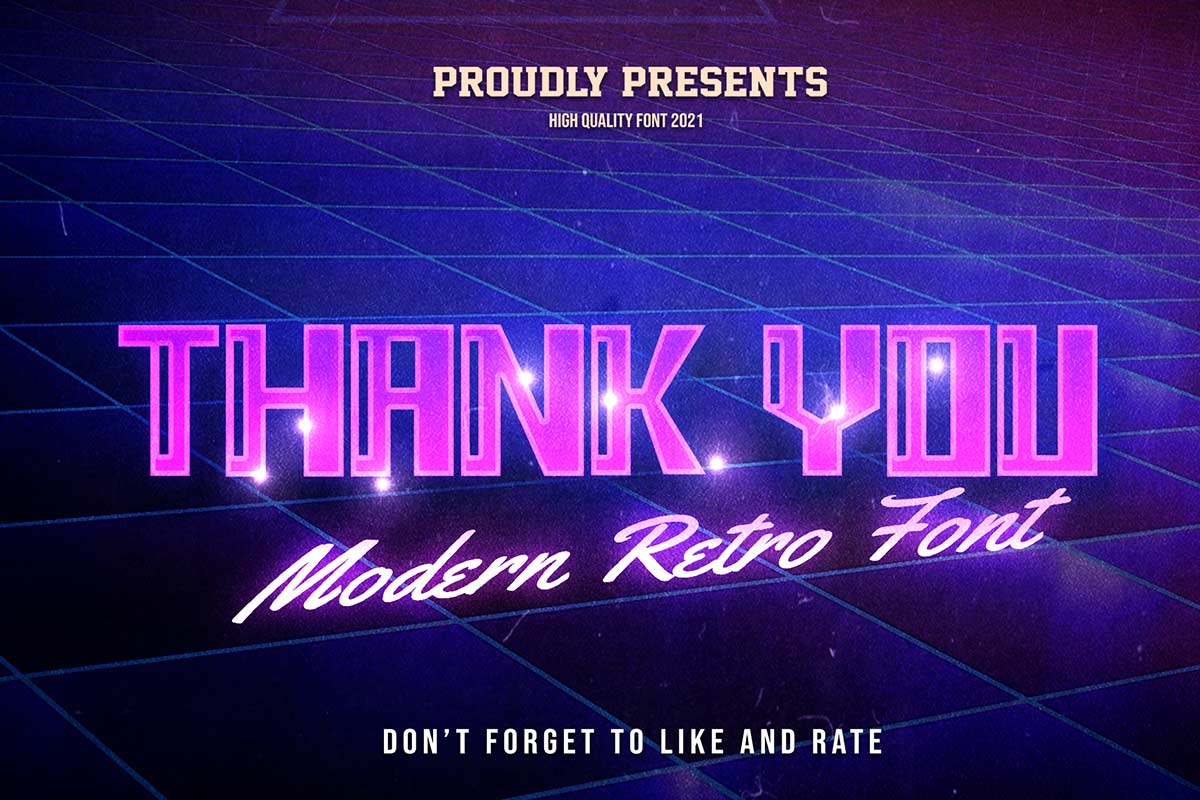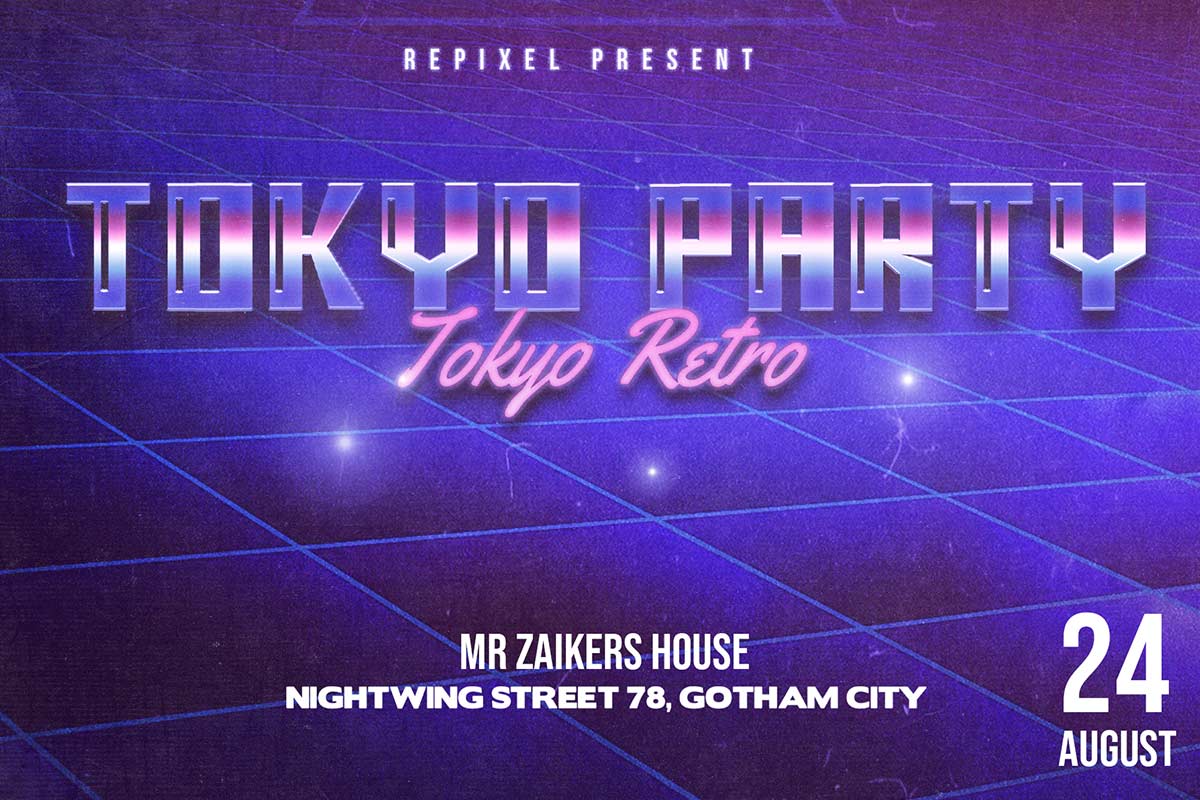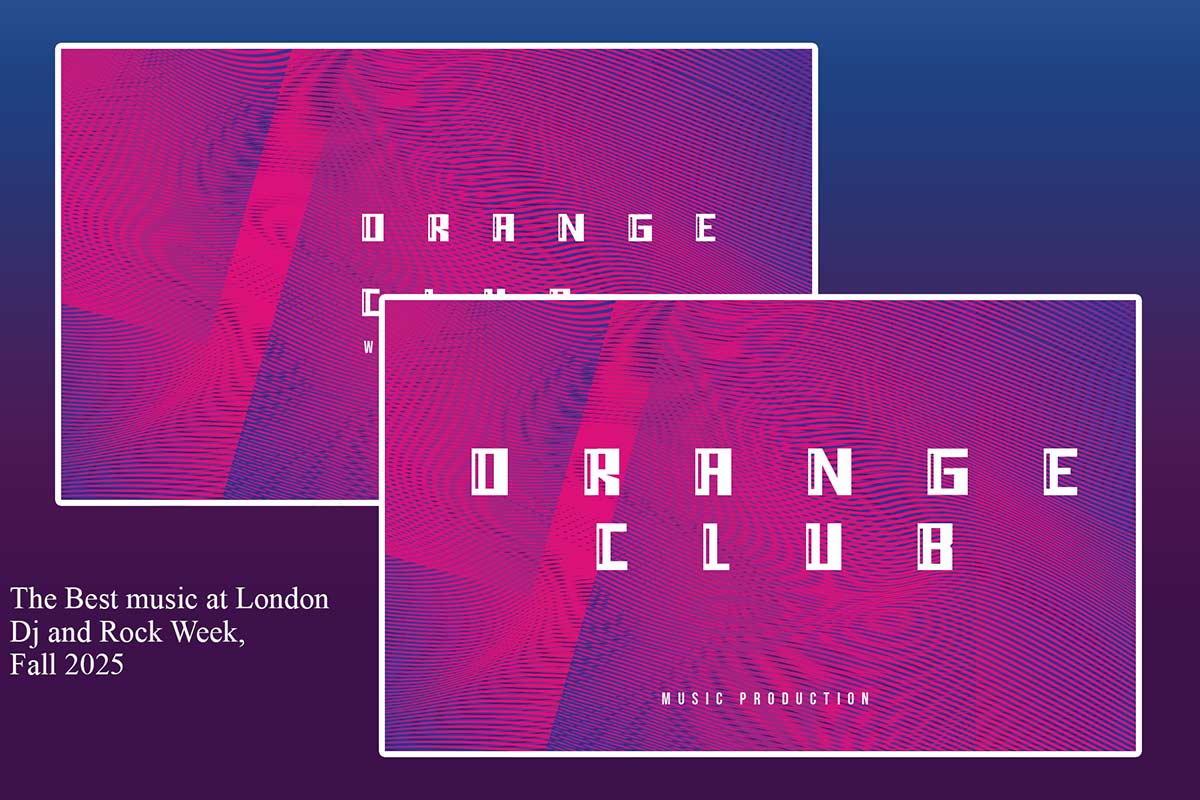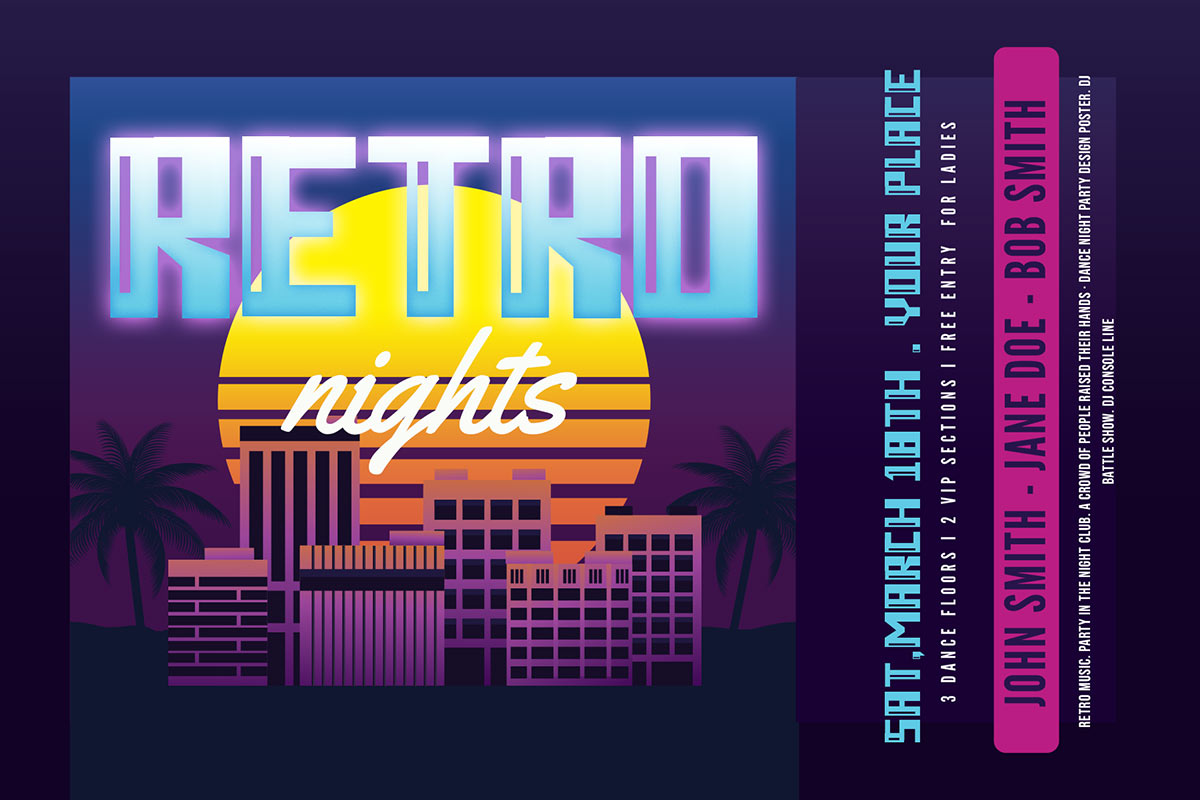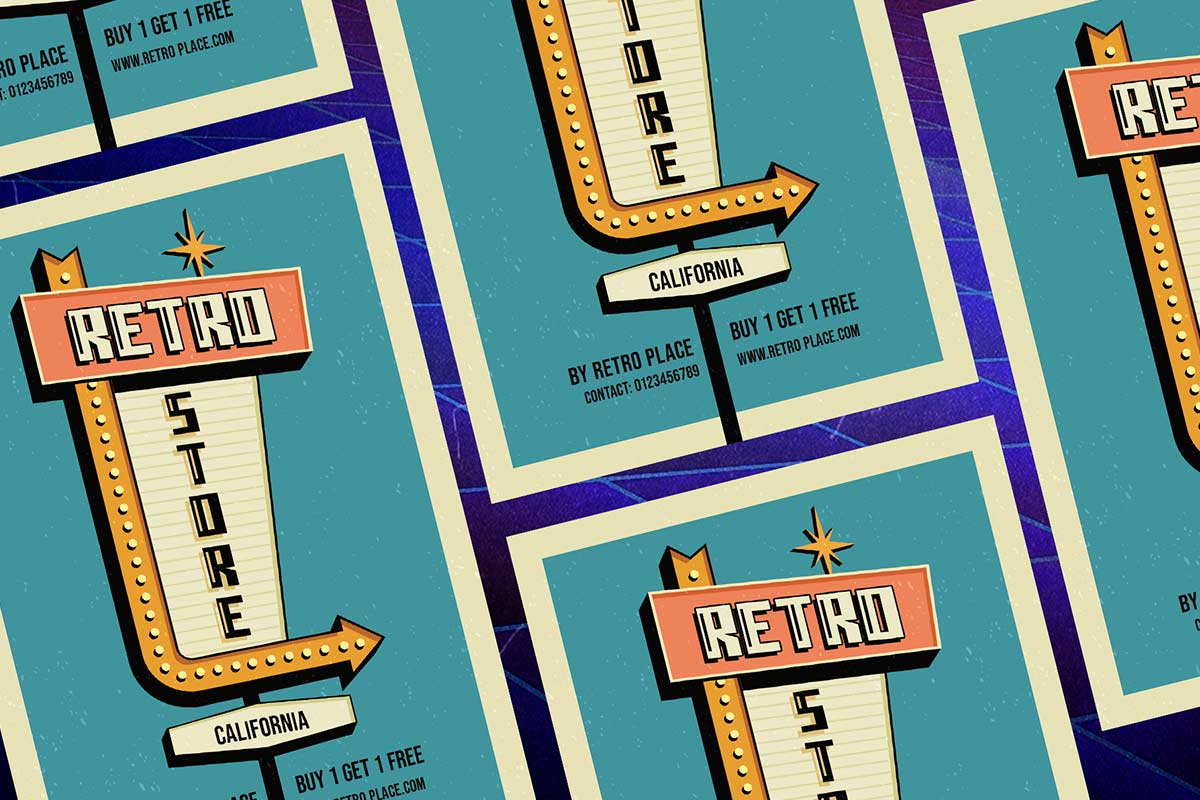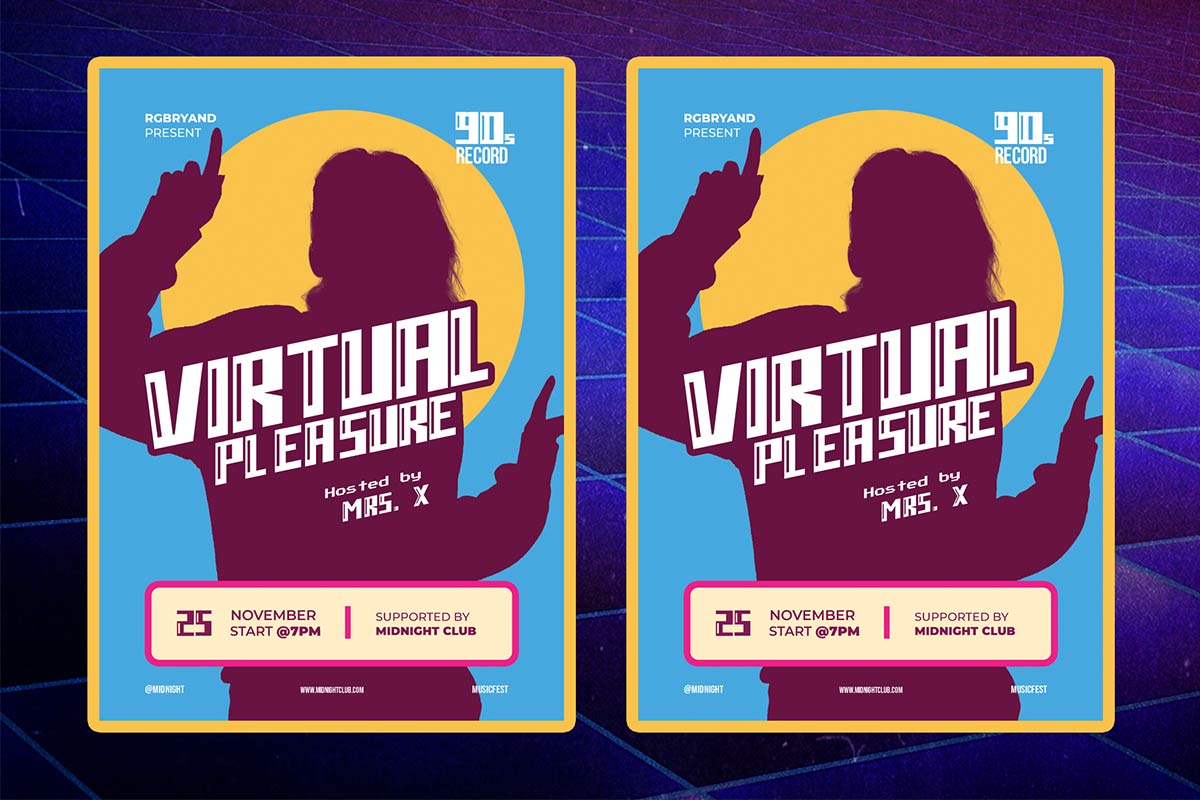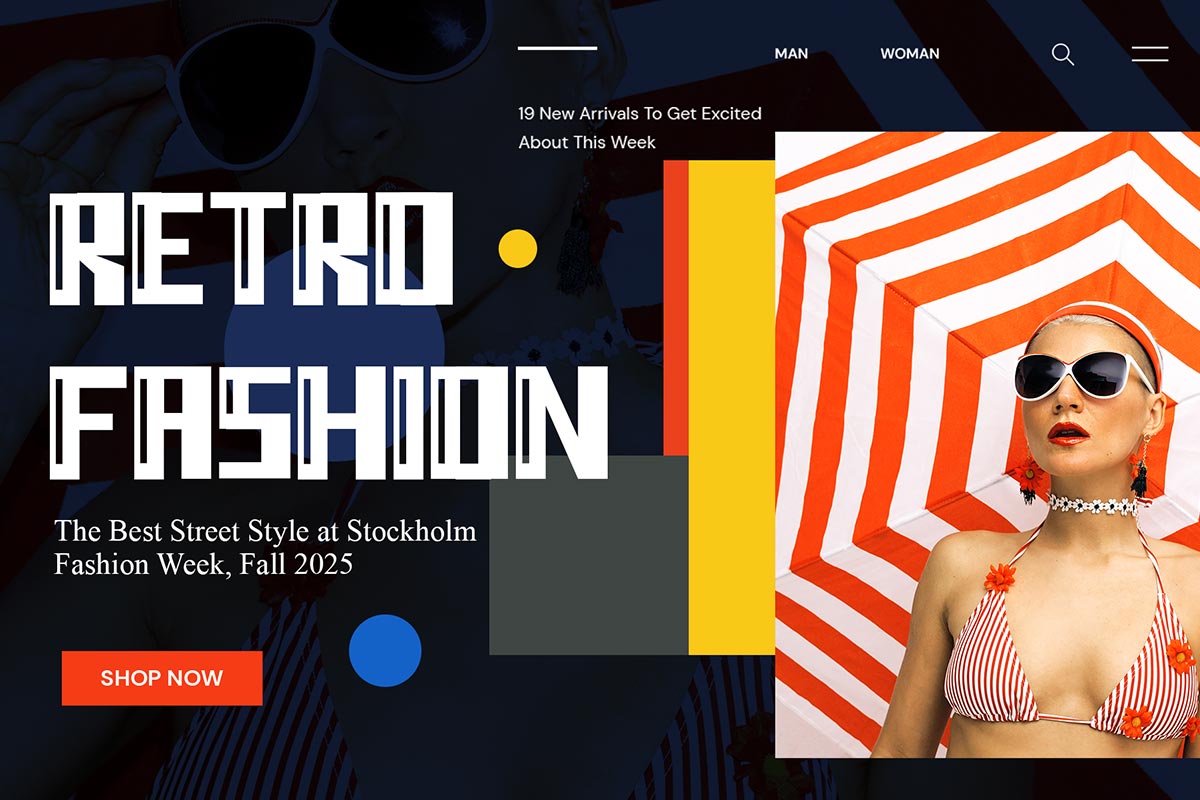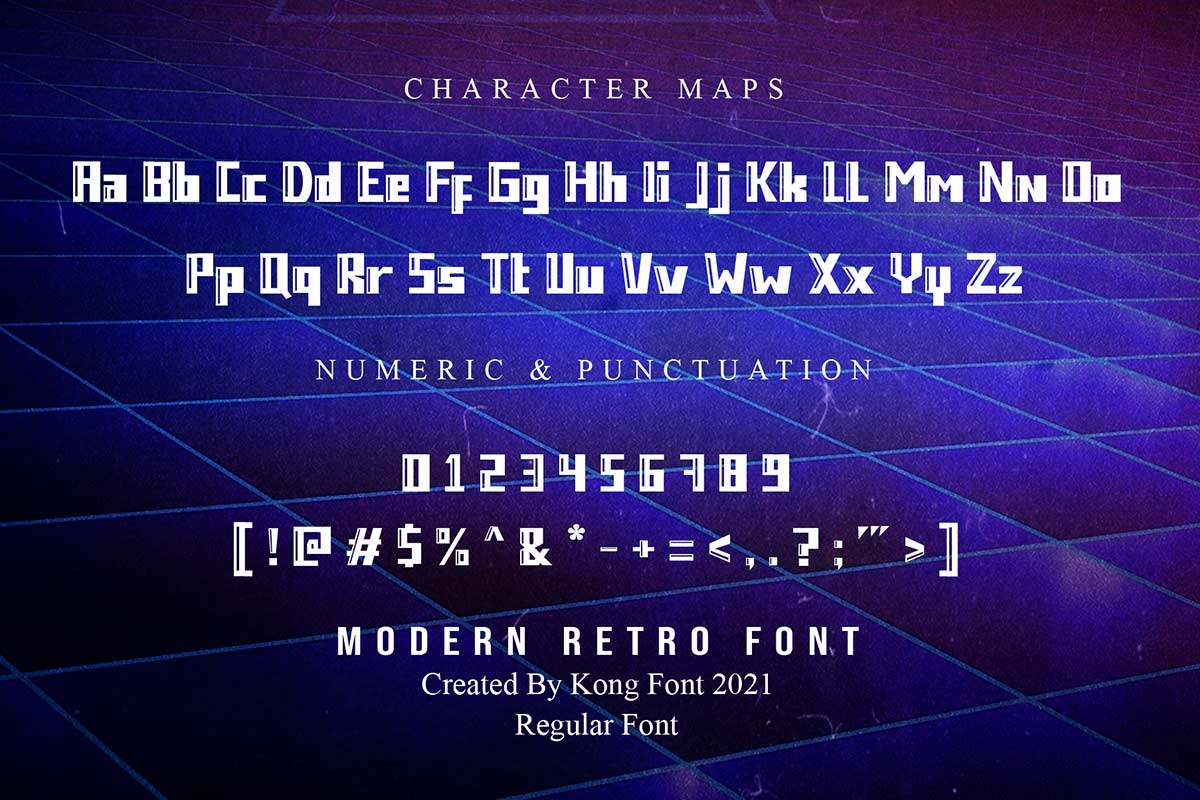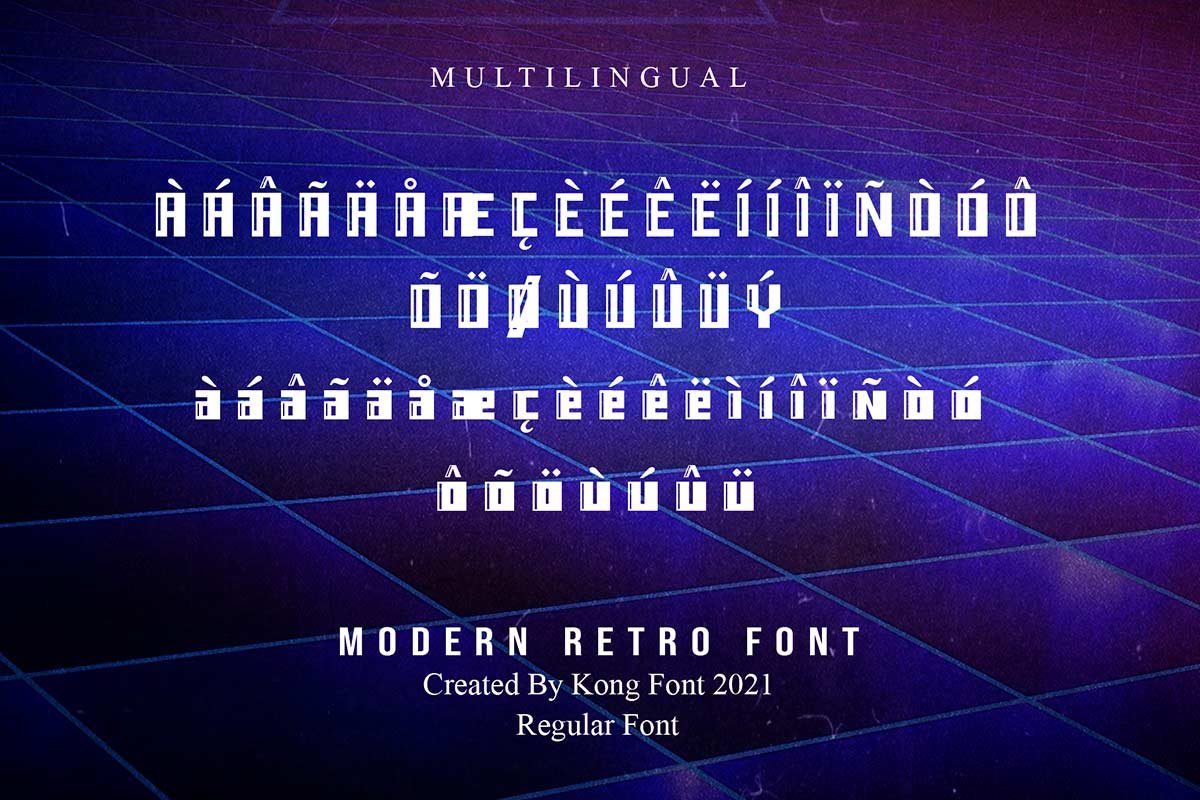
Retrolab Font As the name given to this typeface, Retrolab Modern Retro Font is a retro font with a classic vibe and modern design. This font is here to help you create beautiful letter designs. Retrolab Modern Retro Font is a modern style font with a simple, unique, and attractive shape. It is straight and curved thicker at the end of each letter. Each letter can be distinguished easily. Retrolab Modern Retro Font is a legible font that can be seen and understood from a distance. However, this font is not suitable for writing long sentences or blog content, as well as reading books and magazines. It is better for short sentences. Retrolab Modern Retro Font is the best font to use for event needs. This font can use on posters, banners, and tickets. Besides that, this font can be used as merchandise such as key chains, stickers, and more. This font can be used as a digital font, such as in product promotion advertisements, music program advertisements, and video intros and outros. Retrolab Modern Retro Font is made to give a classic, modern, and simple impression. This impression can change according to the theme and ornaments that follow. It can be lively and colorful when combined with striking ornaments and colors. It still looks great and is very attractive.